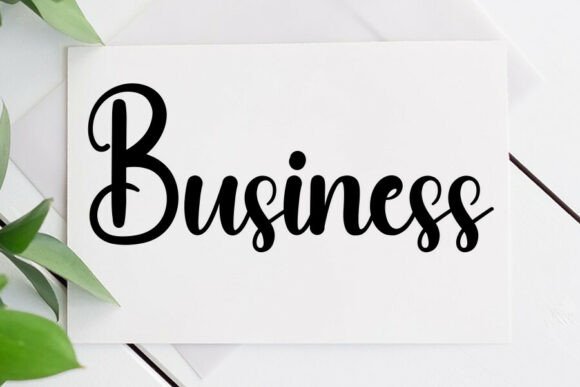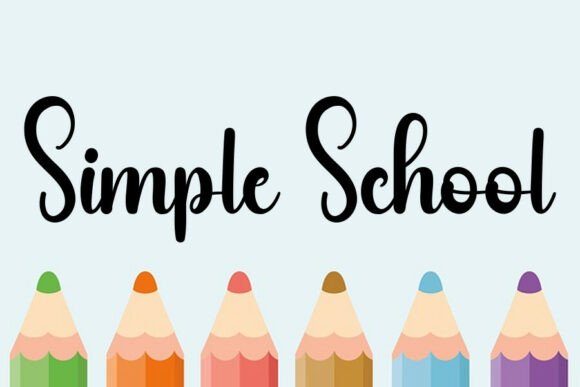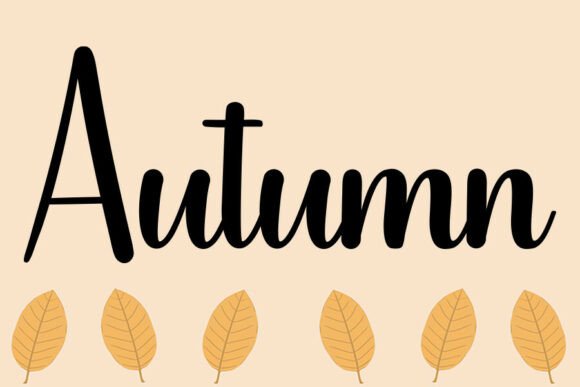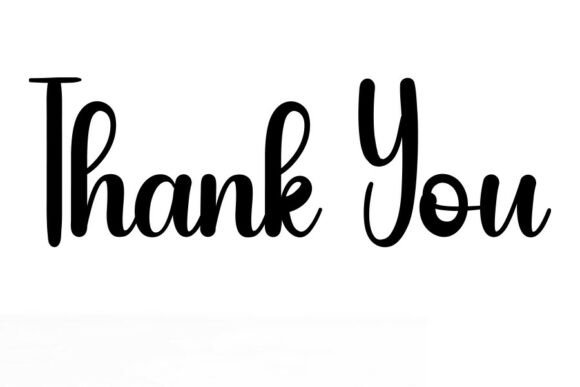
A Font that Catches the Heart: Babysitter Font
Who hasn’t been moved to tears by a heartfelt birthday card or a handwritten note from a loved one? For many designers, creating projects that evoke emotions is a labor of love. It’s that moment of connection with the viewer that makes all the difference. And when it comes to capturing that special feeling, the right font can make all the difference.
Enter Babysitter Font, a charming, handwritten font designed to add a personal touch to your projects. With its slim, elongated characters, this font exudes warmth and personality, making it perfect for Father’s Day designs, greeting cards, and other emotional projects. Whether you’re a seasoned designer or just starting out, Babysitter Font is a valuable addition to your toolkit, offering a clean, handwritten style with a touch of charm.
Babysitter Font Key Features
• Font Family: Babysitter Font is a unique, handwritten font designed to evoke a sense of warmth and playfulness.
• Unique Characteristics: Features a distinctive, cursive style with irregular letterforms, giving it a personal and hand-drawn feel.
Babysitter Font Review
Overall, I’d say the Babysitter Font is a decent choice for any project that needs a playful, child-friendly feel. Here are some aspects where it truly shines: ✨
• Colorful Vibe: The font has a great variety of colors to choose from, making it perfect for creating visually appealing and engaging materials.
• Customization Options: I appreciate the flexibility of customizing font styles, sizes, and colors to suit the project’s requirements.
• Wide Character Set: The font includes a wide range of characters, including uppercase and lowercase letters, numbers, and special symbols.
However, there are a few limitations that might hinder its use in certain situations: ⚠️
• Lack of Bold Options: While there are many color options, the bold versions of the font are somewhat limited, which can make it difficult to create contrast in certain designs.
• Inconsistent Kerning: I noticed some inconsistencies in the kerning, which can affect the overall aesthetic of the font, especially in longer text.
Overall, I think the Babysitter Font is a great choice for projects that require a fun, playful feel. While it has some limitations, the customization options and colorful vibe make it a versatile and engaging font. With some tweaking and careful use, I believe it can be a great addition to any designer’s toolkit.
Tips for Getting the Most Out of Babysitter Font
Use Babysitter Font for creative and playful designs, such as children’s party invitations, nursery decor, and educational materials.
Experiment with different font sizes and colors to create visual interest and emphasize important text.
Babysitter Font is commonly used for:
• Children’s party invitations and decorations
• Nursery decor and wall art
• Educational materials and worksheets
• Children’s books and publishing
Alternatives to Babysitter Font
Comic Sans MS is a casual, playful font designed to resemble handwriting. It’s ideal for creating a friendly and approachable atmosphere in design projects, such as children’s books, educational materials, or websites targeting a younger audience.
Compared to Babysitter Font, Comic Sans MS has a more nostalgic feel and is often associated with a more retro aesthetic. While both fonts are suitable for informal designs, Comic Sans MS has a wider range of applications and is more versatile.
Lato is a modern sans-serif font that works well in both digital and print designs. It’s suitable for projects requiring a clean, elegant, and sophisticated look, such as corporate websites, magazines, or marketing materials.